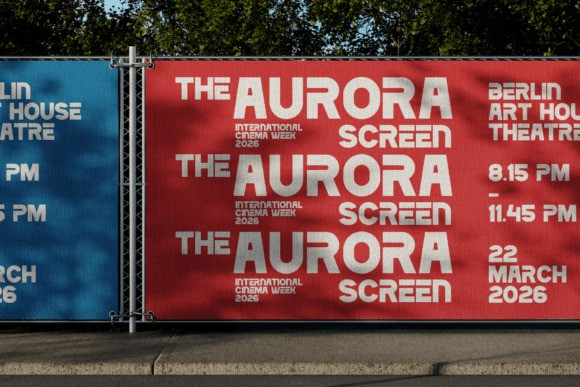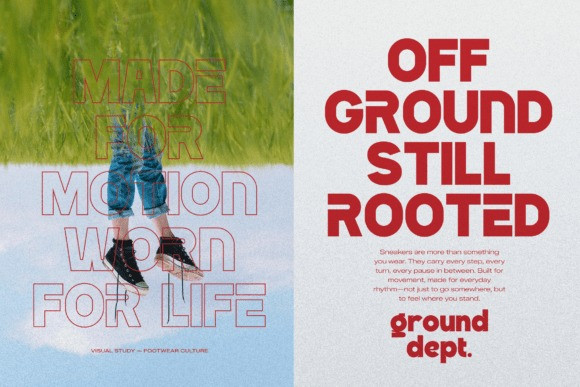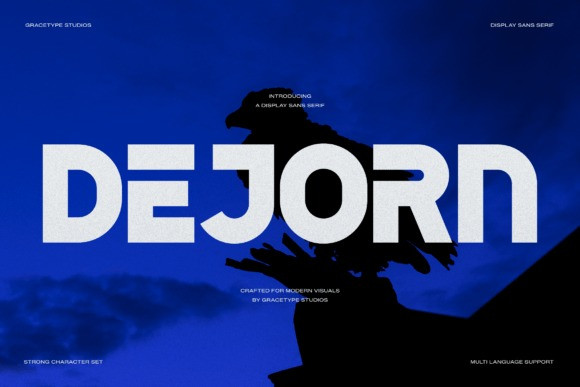
Dejorn Font
Dejorn Font a powerhouse display sans serif designed for maximum impact. This typeface features ultra-thick, geometric letterforms with a rugged, textured finish that adds a tactile, “crafted” feel to your modern visuals. Its wide stance and strong character set make it the perfect choice for high-octane sports branding, cinematic movie posters, streetwear labels, and architectural headers. Whether you’re designing for a digital interface or large-scale print, Dejorn provides a solid, uncompromising foundation that speaks with authority and grit.